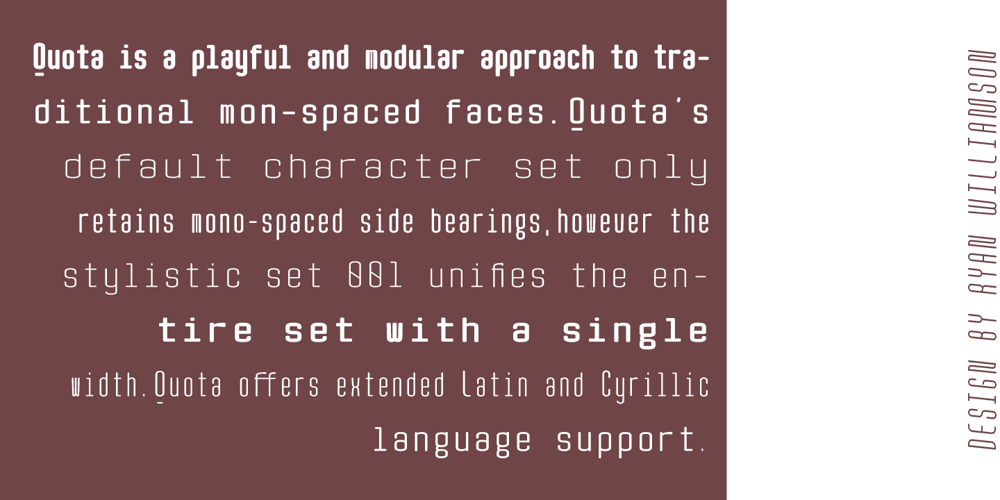
Quota Font Family was designed by Ryan Williamson and published by Ryan Williamson. Quota contains 24 styles and family package options. Quota is an investigation into the modularity of the Cyrillic alphabet. Unlike Latin and Greek, the Cyrillic alphabet owes much of its form to its development in early industrious printing and movable type. This lead the Cyrillic alphabet to be dominated by hard edge and straight lines, giving it a much more modular overall construction. The forms within the Cyrillic alphabet therefor allow for all the characters themselves to have somewhat unified side bearings without compromising ease of reading. Within Quota the default character set has only unified side bearing, giving a more relaxed mono-spaced appearance. While the first stylistic set unifies the entire character set with the same character width, creating a true mono-spaced typeface. Quota was initially designed in Cyrillic, catering to all languages using the alphabet. While the Latin was designed after, and is loosely based of the forms present within the Cyrillic alphabet.